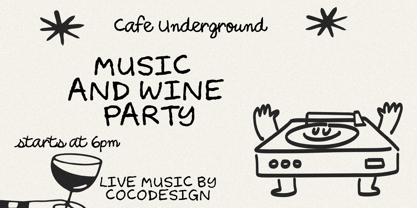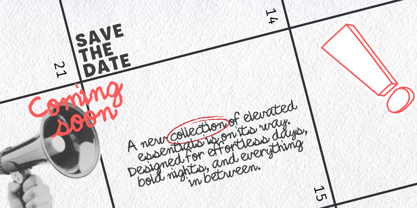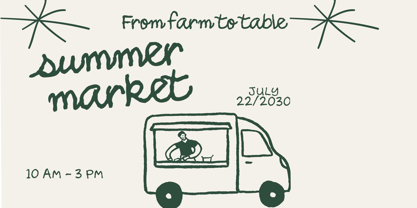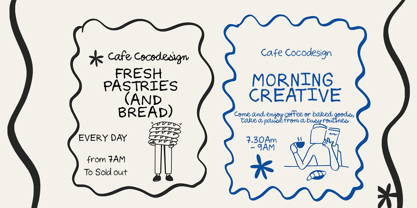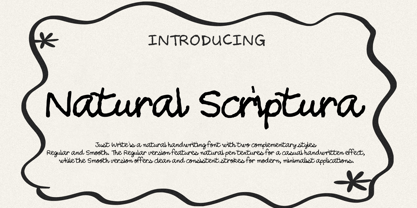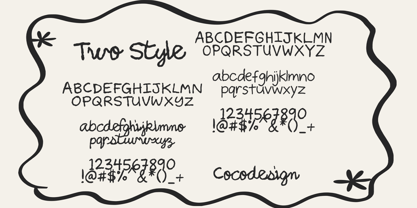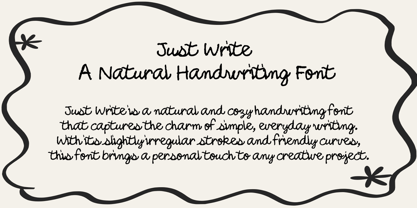
Natural Scriptura
by Cocodesign
The Natural Scriptura Font Family was designed by Muhammad Zaini and published by Cocodesign. Natural Scriptura contains 2 styles and family package options. More about this family
Natural Scriptura is a natural handwriting font with two complementary styles — Regular and Smooth. The Regular version features natural pen textures for a casual handwritten effect, while the Smooth version offers clean and consistent strokes for modern, minimalist applications. Both styles are designed with balanced proportions and friendly letterforms, making this font versatile for a wide range of creative projects. The natural structure ensures clear legibility, suitable for crafting, branding, stationery, and social media design.
Designers: Muhammad Zaini
Foundry: Cocodesign
Natural Scriptura